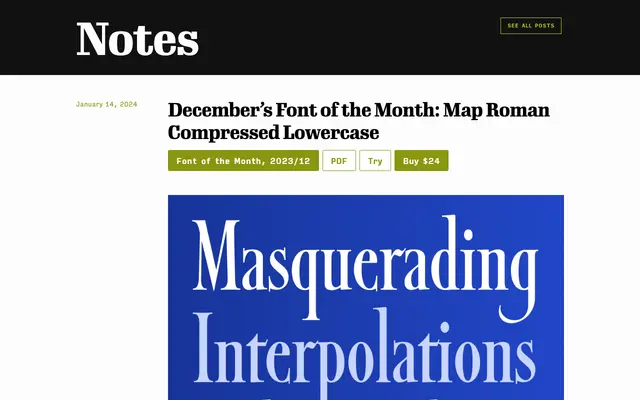
Map Roman
A display serif drawn from the hand-lettered map titling of MacDonald Gill, balancing constructed typographic forms against calligraphic energy in the lowercase.
Rooted in the illustrated maps of MacDonald Gill from the first half of the twentieth century, the typeface favours the formal elegance of his large-scale titling capitals. The lowercase, introduced in the Compressed variant, threads a line between constructed rigidity and Gill's looser calligraphic hand, retaining extra-long ascenders and descenders, flat connectors on p/d/b/q, and swashing descenders on j, g and y. The result carries a productive tension between typographic discipline and handmade warmth.
Map Roman is a display serif drawn from the hand-lettered titling caps of cartographer MacDonald Gill, with formal constructed letterforms and calligraphic tension in the lowercase, placing it firmly in the display category.